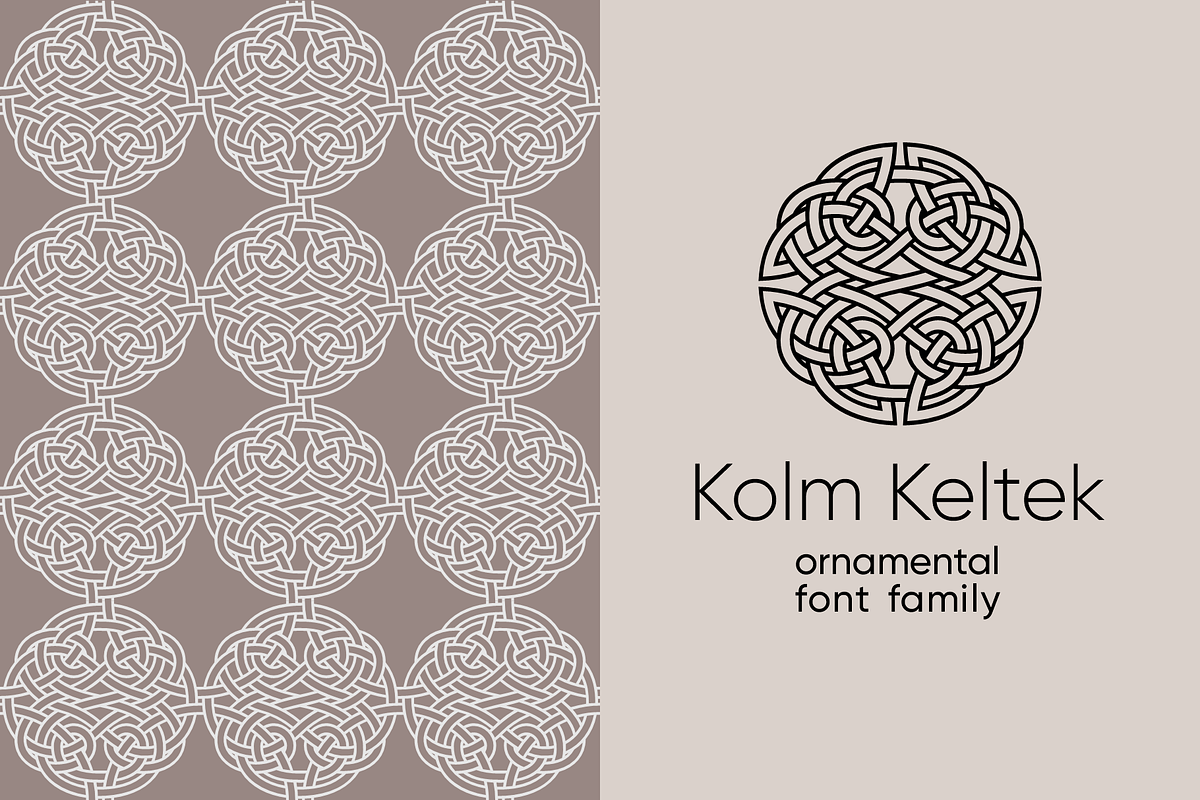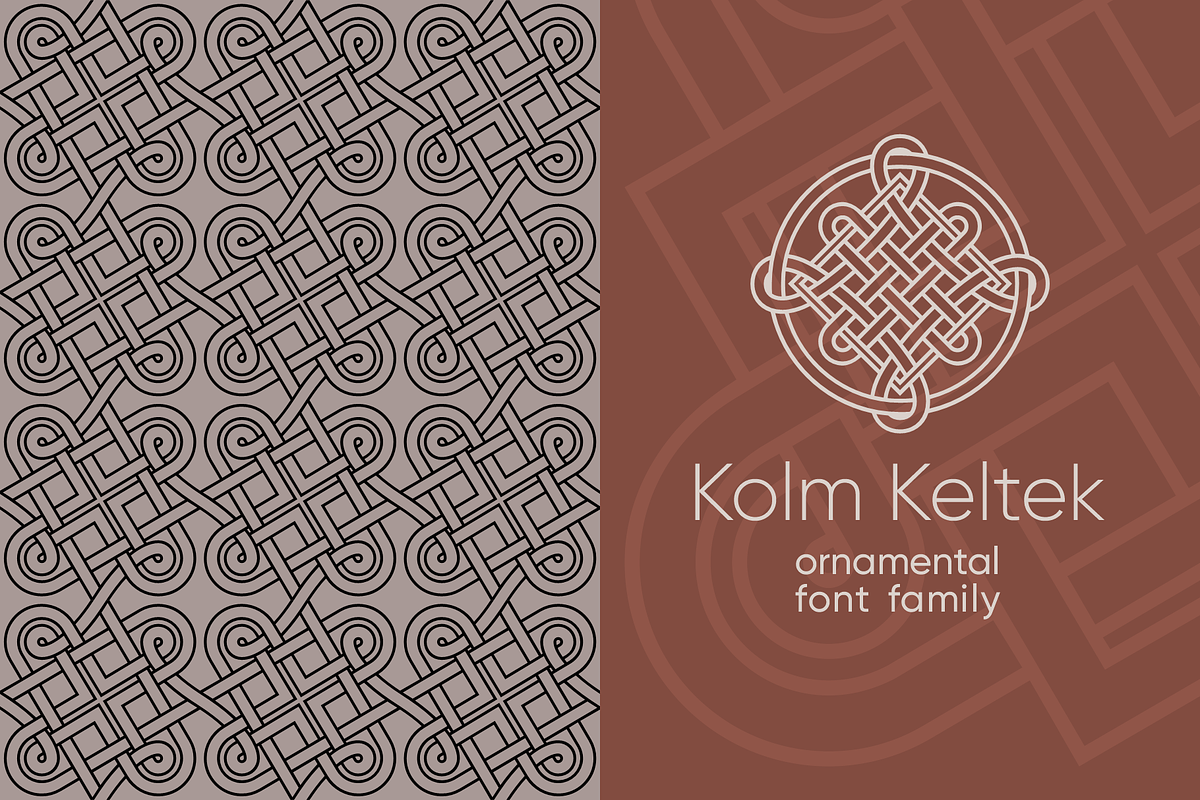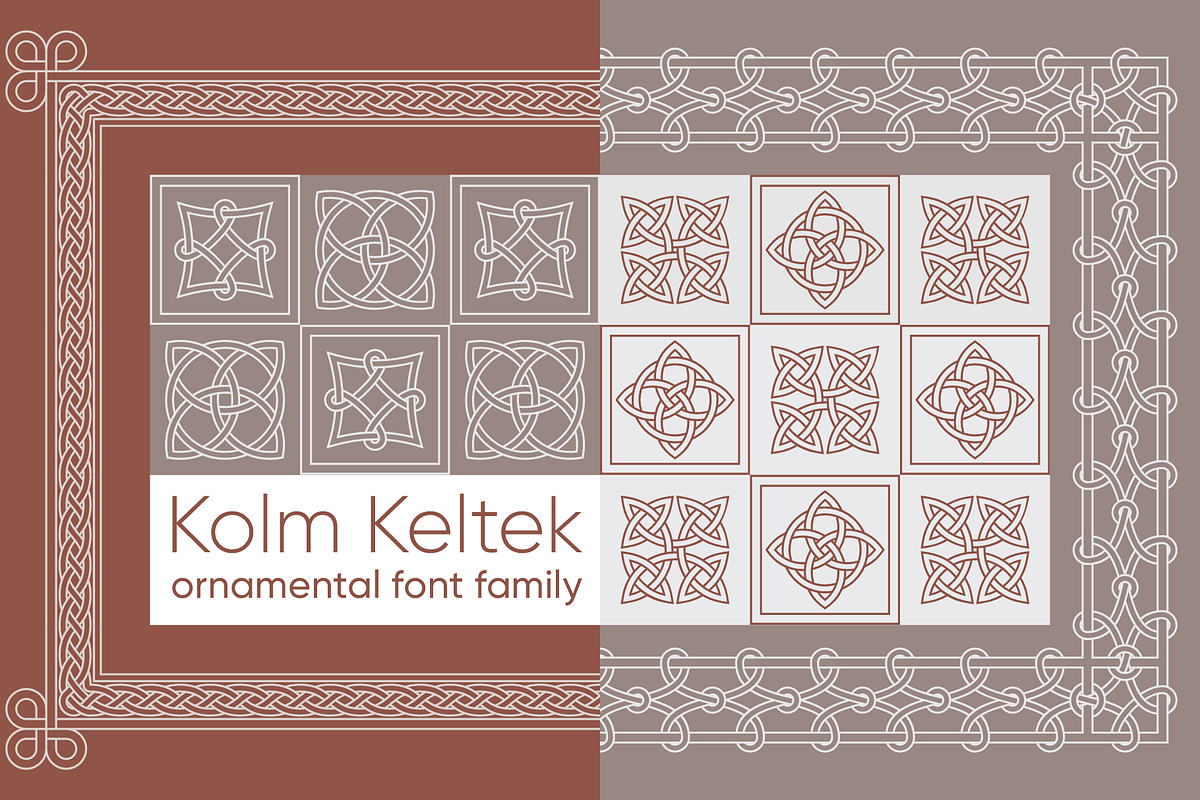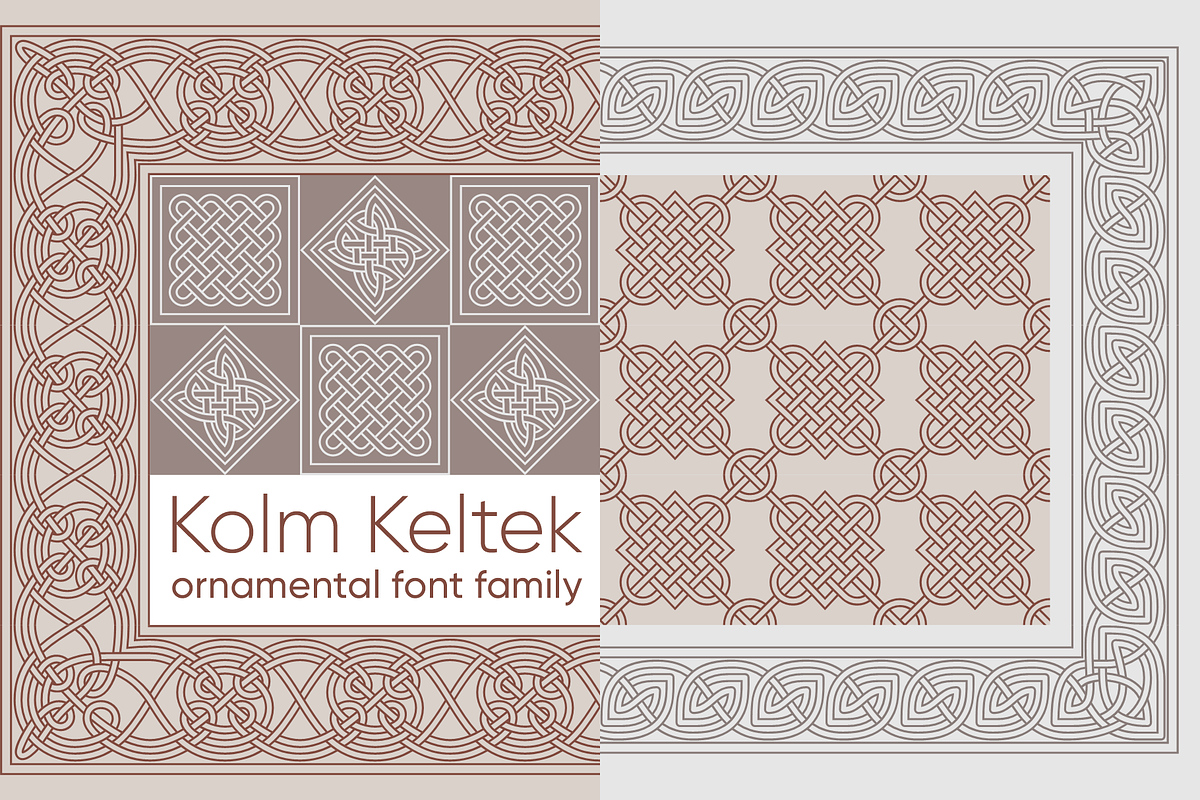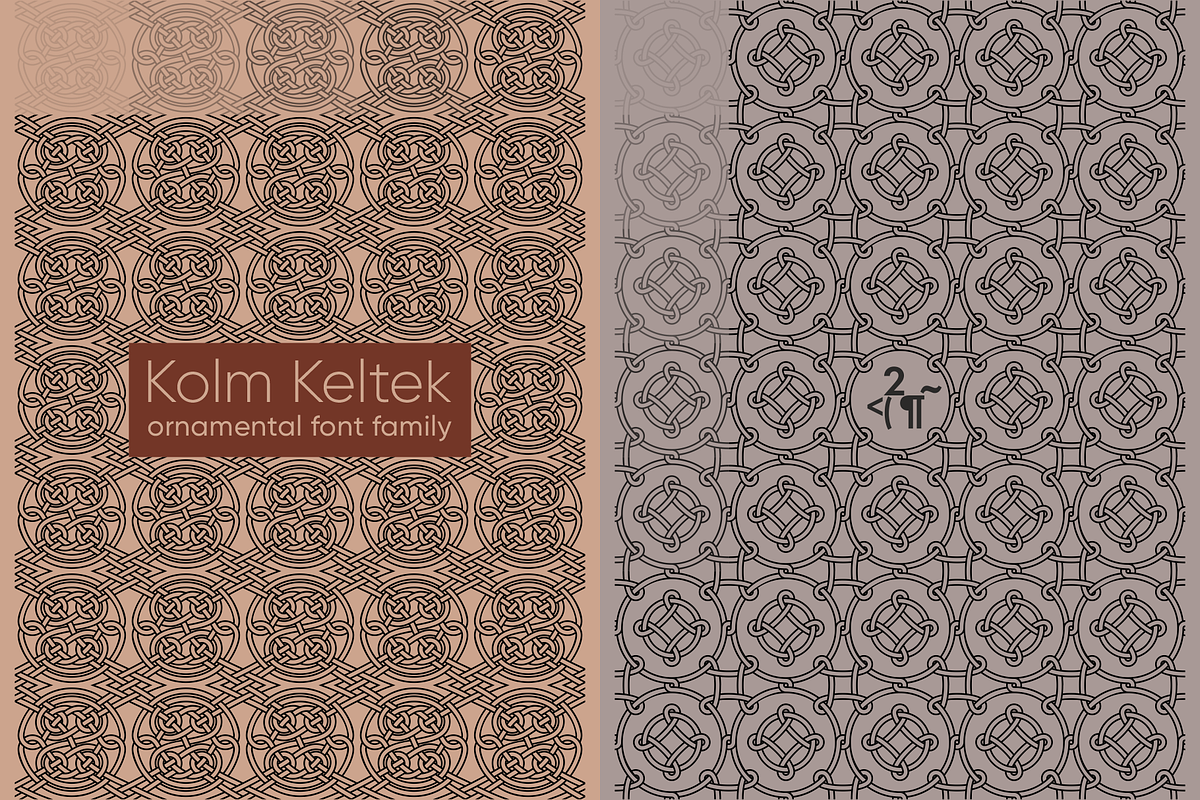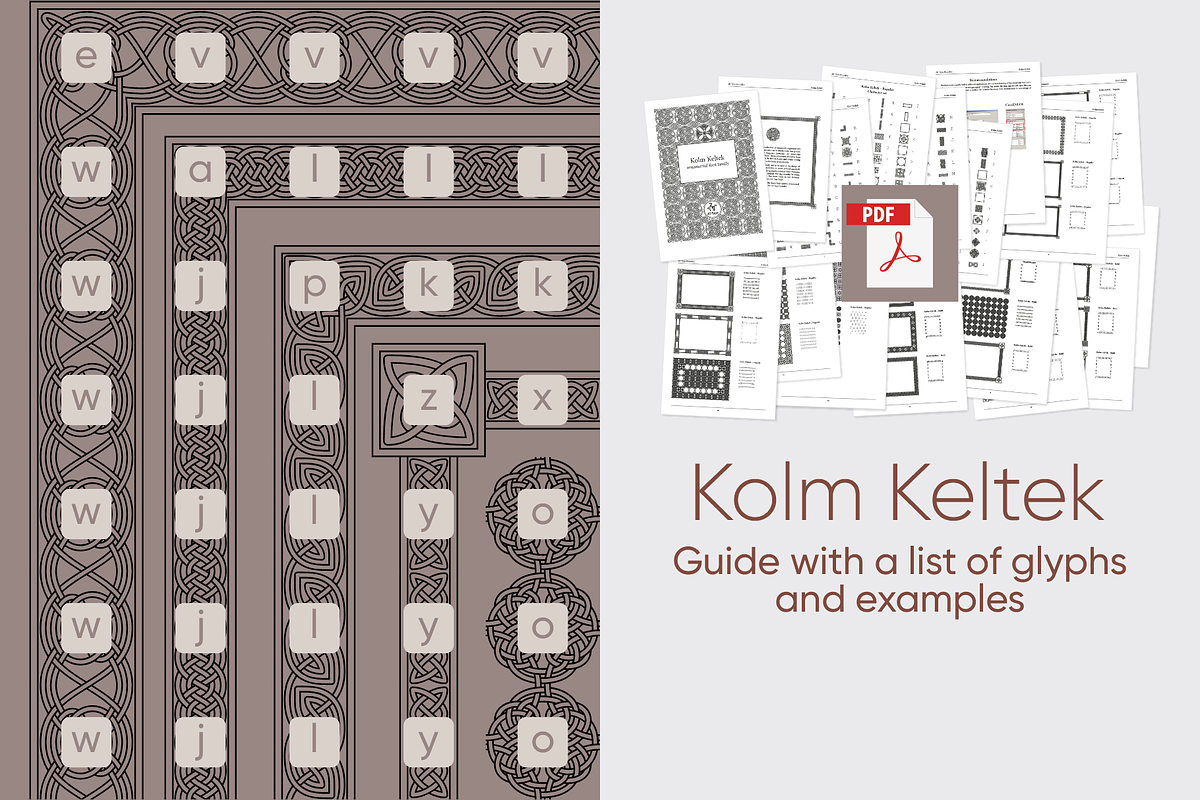
Kolm Keltek
Kolm Keltek is a collection of ornaments organized into two font files. The ornaments can be divided into two groups: Friezes (borders) and Rapports (patterns). All ornaments belong to the Celtic culture. These ornaments are taken from manuscripts. This makes the font exclusive and unique among other digital collections of ornaments. These patterns perfectly suit to be used in the design of invitations, diplomas, certificates or other printed materials in historical style design. Kolm Keltek - Demo Guide contains basic examples of how to combine the ornaments that significantly facilitates the use of the collection. https://issuu.com/2d-studio/docs/kolmkeltek-demo